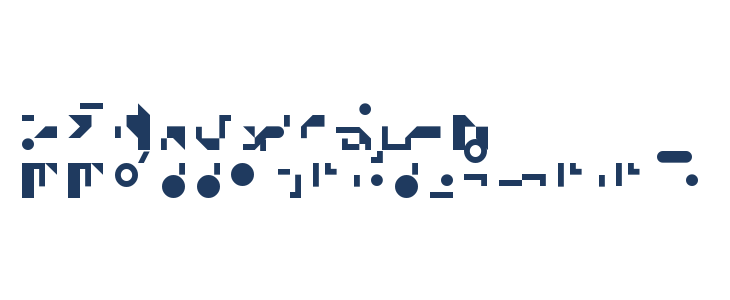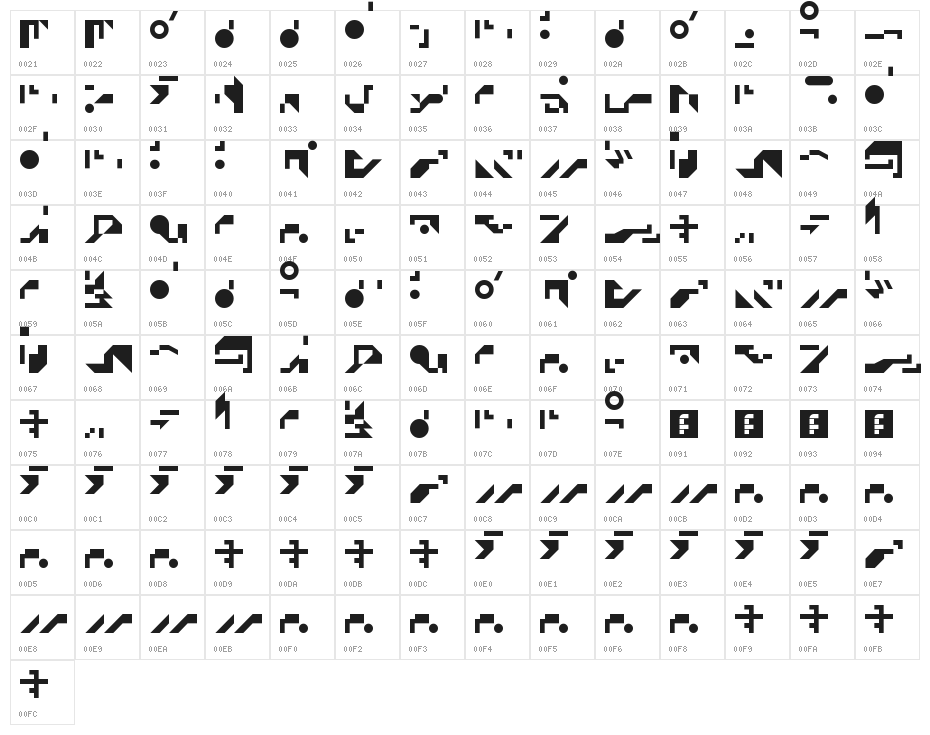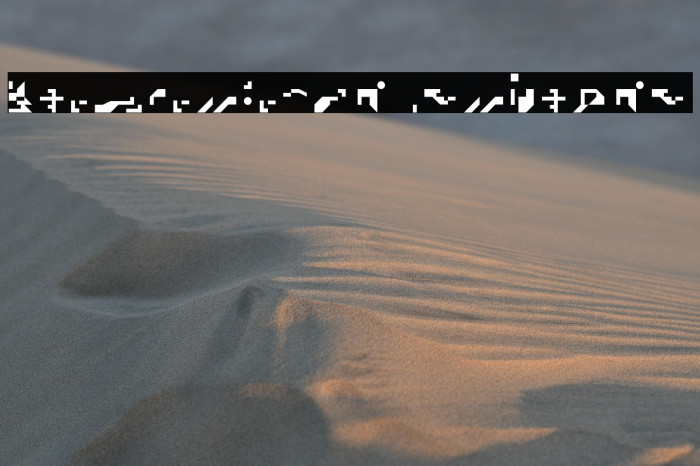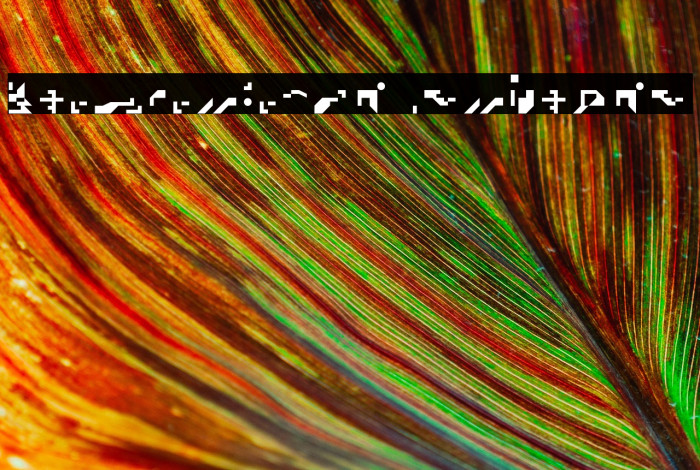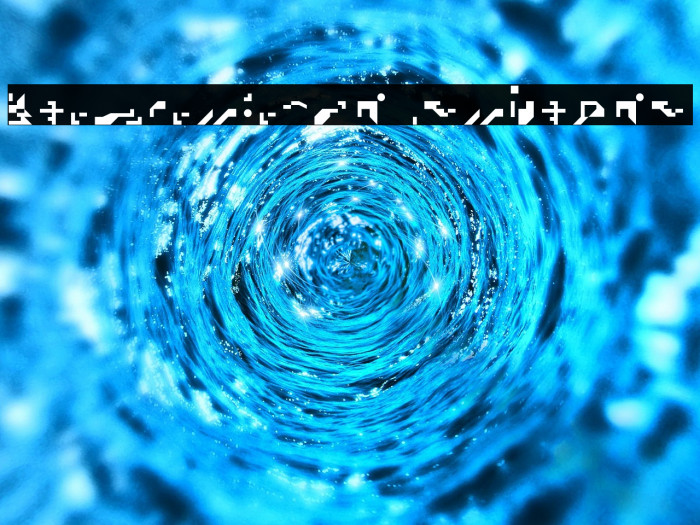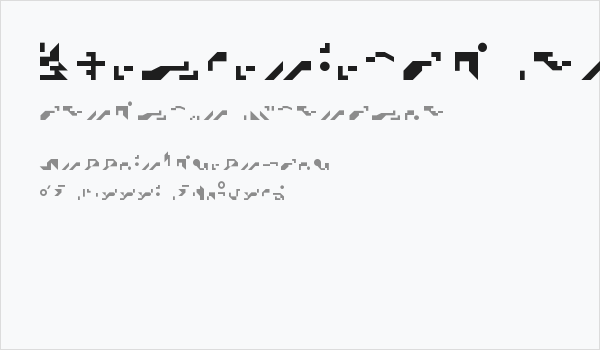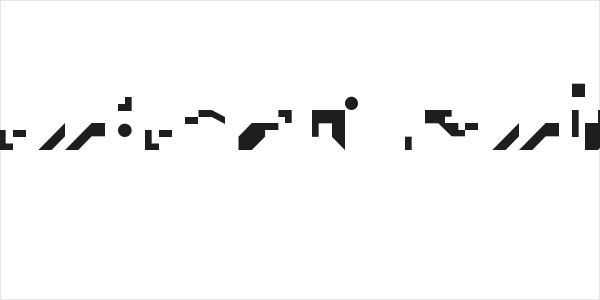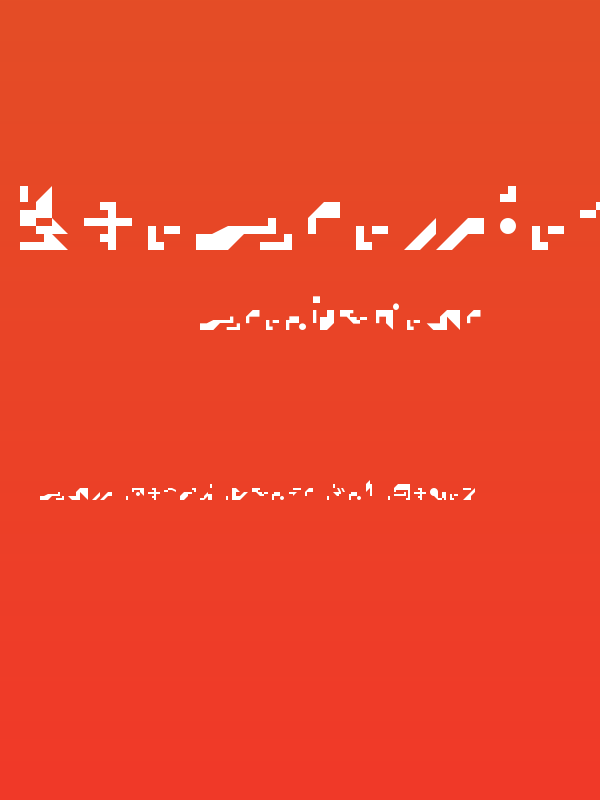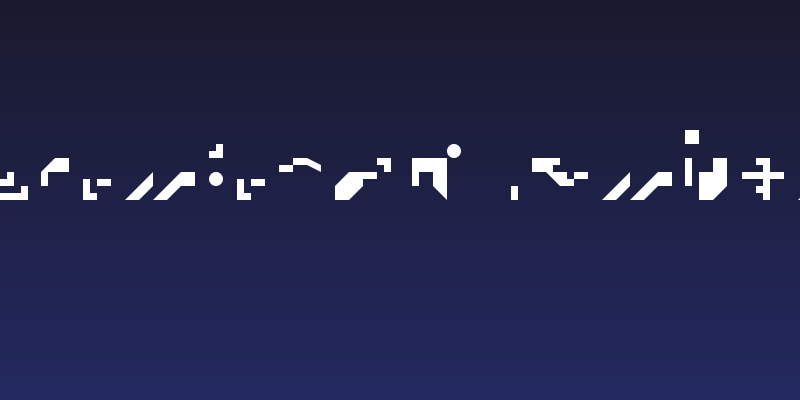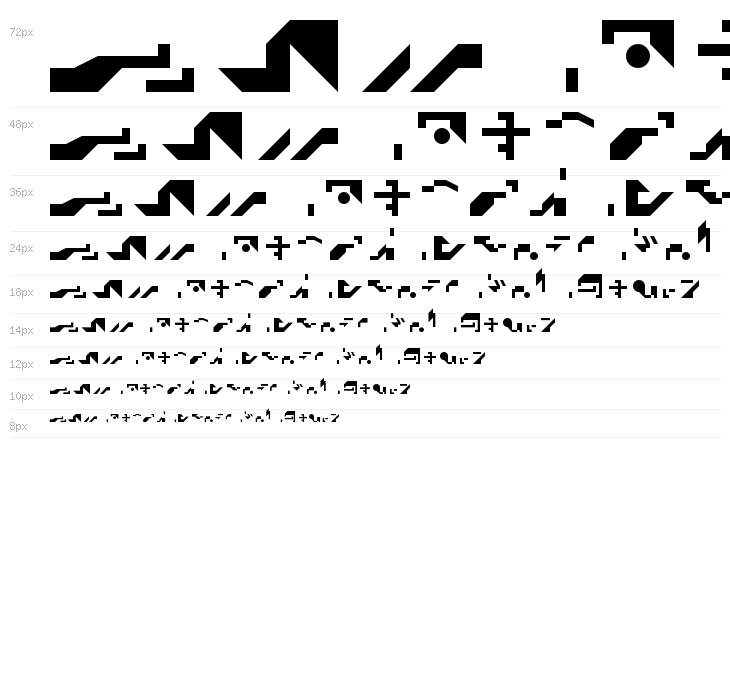
zuptype_pica Regular Font
zuptype_pica Regular Description
This font exhibits a highly abstract and geometric style, characterized by its bold, angular shapes and sharp edges. Each character is constructed from a series of solid, block-like forms that create a sense of modernity and innovation. The design is reminiscent of digital or futuristic aesthetics, with a unique approach that challenges traditional letterforms. The characters are distinct and unconventional, making it ideal for creative and avant-garde projects. Its striking appearance ensures that it stands out, making it suitable for attention-grabbing designs.
| Proposed Projects | Ideal for modern art projects, digital media, branding for tech companies, and innovative advertising campaigns. |